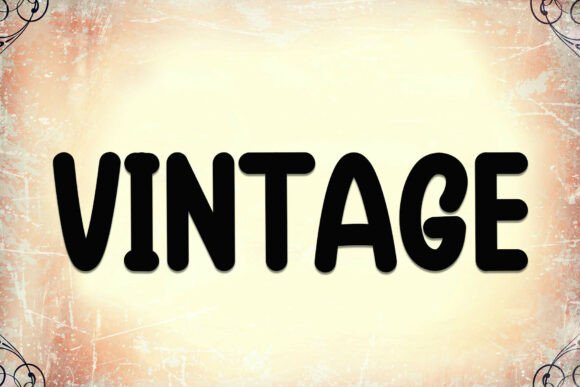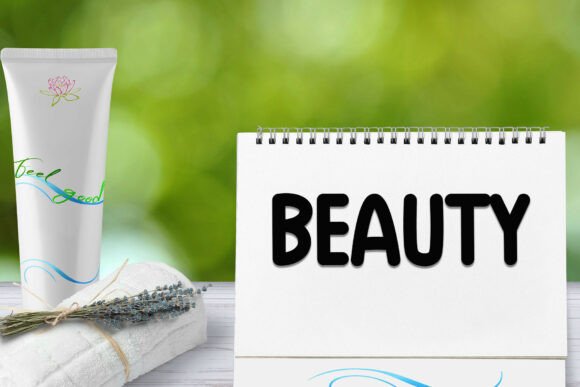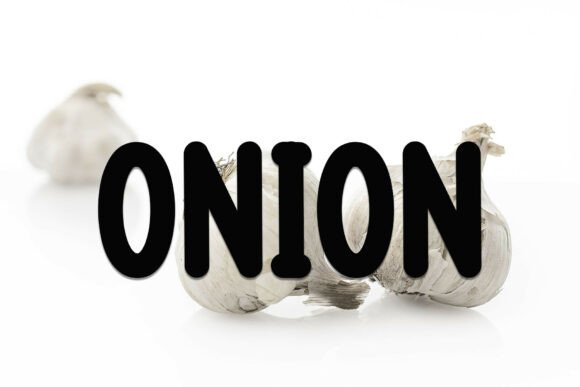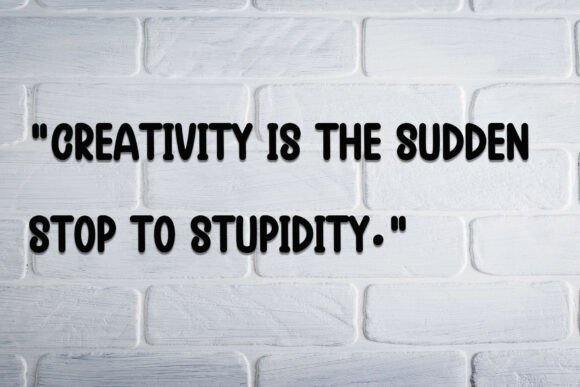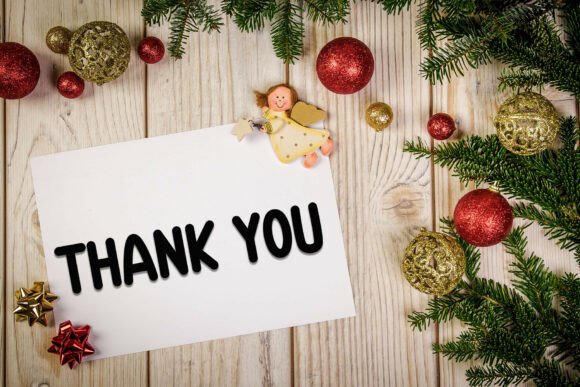
The Perfect Font for Your Next Design Project: Meet Father Font
I’ll never forget the frustration of working on a design project, hours spent perfecting every detail, only to be held back by one thing: the font. My client wanted something modern, yet friendly; something that would make their brand stand out without looking too polished. It was a challenge I’d faced many times before, but this time, I was determined to find the perfect solution. That’s when I discovered Father Font, a casual and neat display font that has since become a staple in my design toolkit.
What Makes Father Font Special?
Father Font combines simplicity with a friendly, approachable vibe, making it perfect for a wide range of design applications. Its clean lines, balanced letterforms, and subtle rounded edges capture the essence of modern handwritten typography with a polished finish. Whether you’re working on branding, headlines, packaging, or digital content, this font adds a warm and inviting touch to any design.
So, what do I love about Father Font? Here are a few highlights:
- ✨ Versatility: Father Font is incredibly versatile, making it suitable for a variety of design projects, from logos and branding to social media graphics and packaging.
- ✅ Readability: The font’s clean lines and balanced letterforms ensure excellent readability, even at smaller sizes.
- 💡 Unique Character: Father Font has a distinct personality that sets it apart from more generic fonts, adding a touch of warmth and approachability to any design.
Of course, no font is perfect, and there are a few small quirks to be aware of:
- 🤔 Limited Serif Options: As a display font, Father Font is designed primarily for headlines and titles. While it’s excellent for these purposes, it may not be the best choice for body text or longer blocks of content.
- ⚠️ Glyph Limitations: While Father Font includes a range of glyphs and stylistic alternates, it may not have every special character or symbol you need. Be sure to review the font’s capabilities before committing to a project.
The Story Behind Father Font
Father Font was designed with the goal of creating a modern, yet approachable font that would capture the essence of handwritten typography. Inspired by the imperfections and quirks of human handwriting, the font’s creator aimed to craft a font that would feel both polished and relatable. The result is a font that is both versatile and charming, perfect for a wide range of design applications.
- Q: What type of projects is Father Font best suited for?
- A: Father Font is ideal for branding, headlines, packaging, and digital content, particularly when a modern yet friendly vibe is desired.
- A: While Father Font is primarily designed for display purposes, it can be used for short blocks of text. However, for longer content, a more traditional body font may be more suitable.
- Q: Does Father Font include OpenType features?
- A: Yes, Father Font includes a range of OpenType features, including glyphs and stylistic alternates, to help you customize your designs.